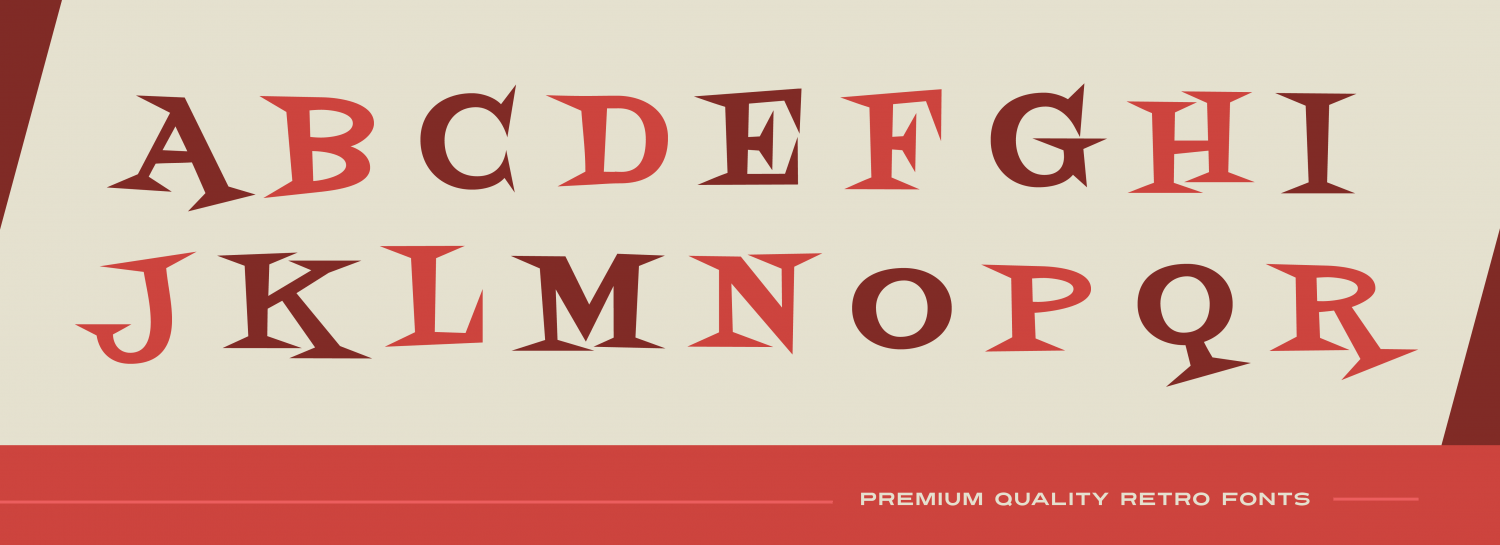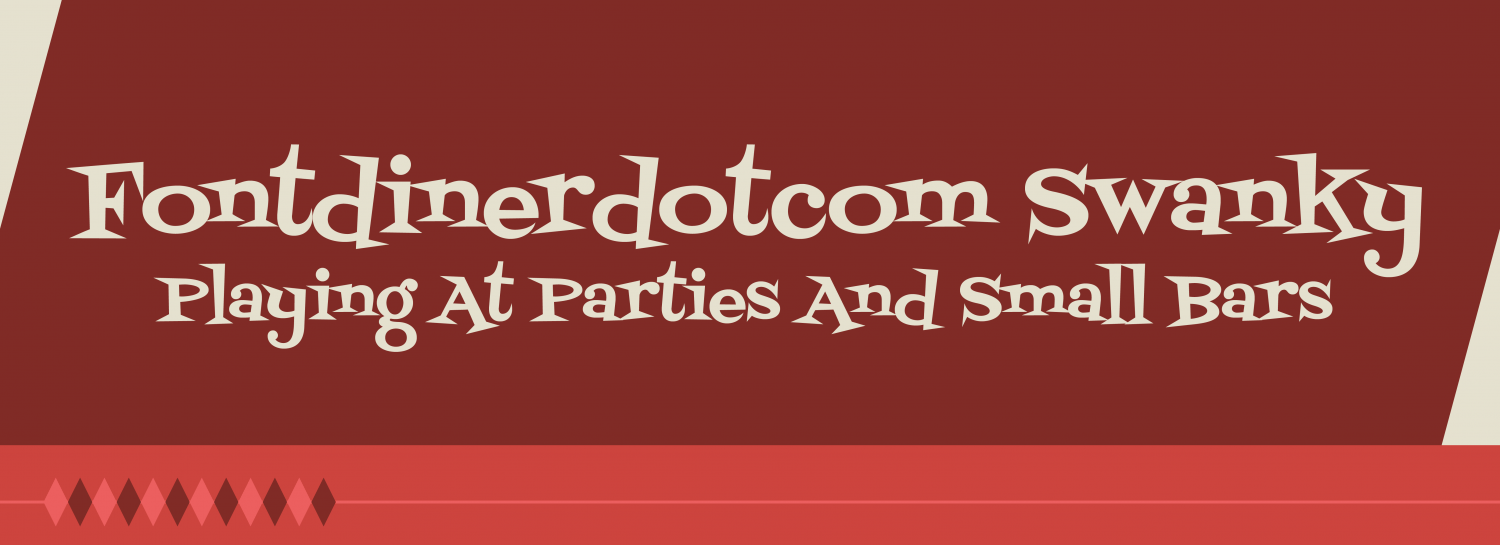
Fontdinerdotcom Swanky
About Fontdinerdotcom Swanky
Atomic Age science meets ultra cool with this swingin\’ retro latin sharp serif font we call Fontdiner Swanky! Like the older much hipper brother of it\’s Loungy counterpart, Swanky brings his bolder style and charming good looks when it\’s time to really…